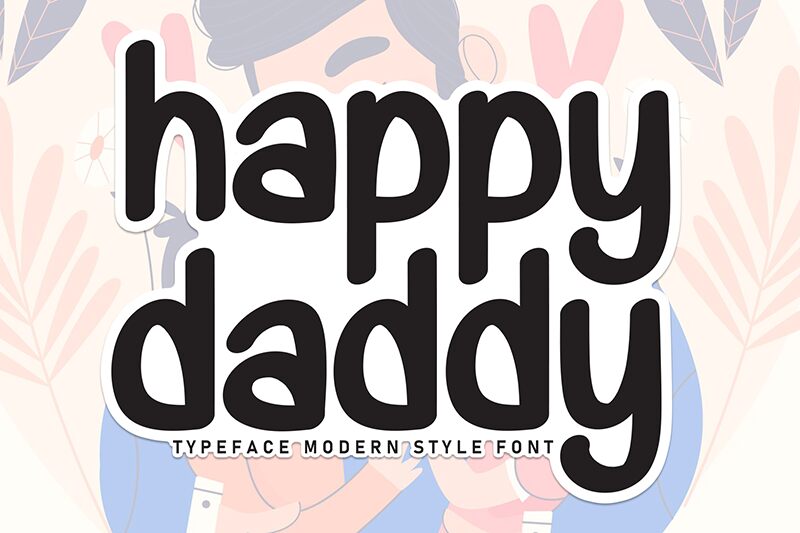
Happy Daddy
Happy Daddy font is a handwritten typeface by Andi Moz, exuding a friendly and informal tone. This free handwritten font combines elements of casual and approachable design, allowing for wide modern application possibilities where a cheerful ambiance is necessary.
Use Happy Daddy in branding, invitations, promotional materials, packaging design, greeting cards and posters. Websites and social media posts or advertisements can benefit from the visual appeal this typeface has to display.